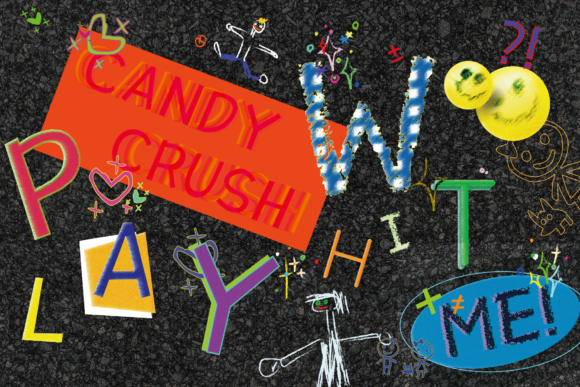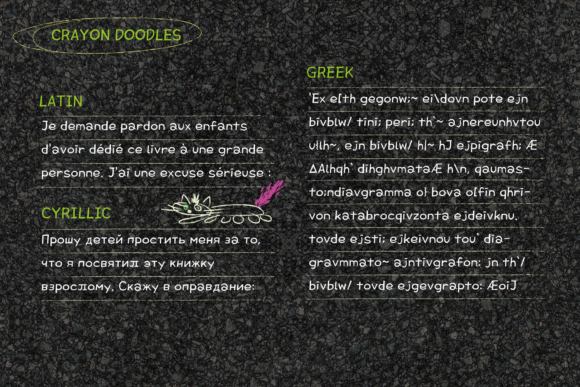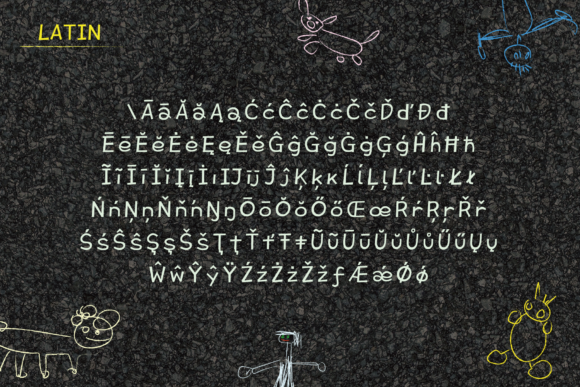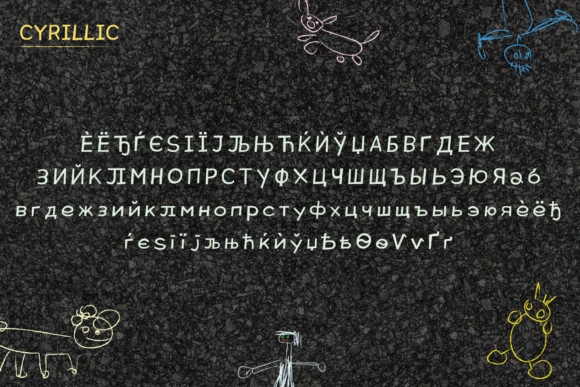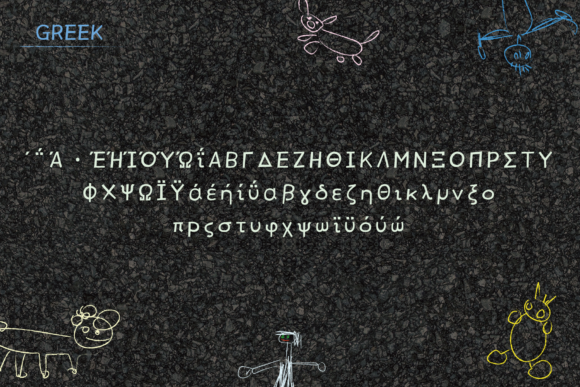
Crayon Doodles Font: A Clean and Casual Display Font for Creative Projects
Are you a designer, crafter, or DIY enthusiast looking for a font that can add a touch of playfulness and creativity to your projects? Look no further than Crayon Doodles Font, a clean and casual display font that is perfect for a wide range of applications. In this article, we’ll take a closer look at the features and benefits of Crayon Doodles Font, and explore how it can enhance your creative projects.
What is Crayon Doodles Font?
Crayon Doodles Font is a display font that is designed to mimic the look of crayon doodles. It has a clean and casual appearance, making it perfect for use in a variety of creative projects, from posters and flyers to crafts and DIY tutorials. The font is highly versatile and can be used to add a touch of playfulness and whimsy to any design.
Key Features of Crayon Doodles Font
So what makes Crayon Doodles Font so special? Here are some of its key features:
- Clean and Casual Appearance: Crayon Doodles Font has a clean and casual appearance that makes it perfect for use in a wide range of creative projects.
- Highly Versatile: The font is highly versatile and can be used in a variety of applications, from posters and flyers to crafts and DIY tutorials.
- Playful and Whimsical: Crayon Doodles Font has a playful and whimsical appearance that makes it perfect for adding a touch of personality to your designs.
- Easy to Read: Despite its playful appearance, Crayon Doodles Font is easy to read, making it perfect for use in titles, headings, and other applications where readability is important.
Benefits of Using Crayon Doodles Font
So why should you choose Crayon Doodles Font for your creative projects? Here are some of the benefits of using this font:
- Adds a Touch of Personality: Crayon Doodles Font can add a touch of personality and whimsy to your designs, making them stand out from the crowd.
- Perfect for Creative Projects: The font is perfect for use in creative projects, such as crafts, DIY tutorials, and other handmade projects.
- High-Quality Design: The font is designed to high-quality standards, ensuring that it looks great in any application.
Creative Projects that Crayon Doodles Font is Perfect For
Crayon Doodles Font is perfect for a wide range of creative projects, including:
- Posters and Flyers: The font is perfect for use in posters and flyers, adding a touch of playfulness and whimsy to your designs.
- Crafts and DIY Tutorials: Crayon Doodles Font is perfect for use in crafts and DIY tutorials, adding a personal touch to your projects.
- Social Media Graphics: The font can be used to create eye-catching social media graphics that are sure to grab attention.
- Party Decorations: Crayon Doodles Font can be used to create party decorations, such as banners and signs, that are fun and playful.
In conclusion, Crayon Doodles Font is a clean and casual display font that is perfect for a wide range of creative projects. Its playful and whimsical appearance makes it perfect for adding a touch of personality to your designs. Whether you’re a designer, crafter, or DIY enthusiast, Crayon Doodles Font is a great addition to your font library.